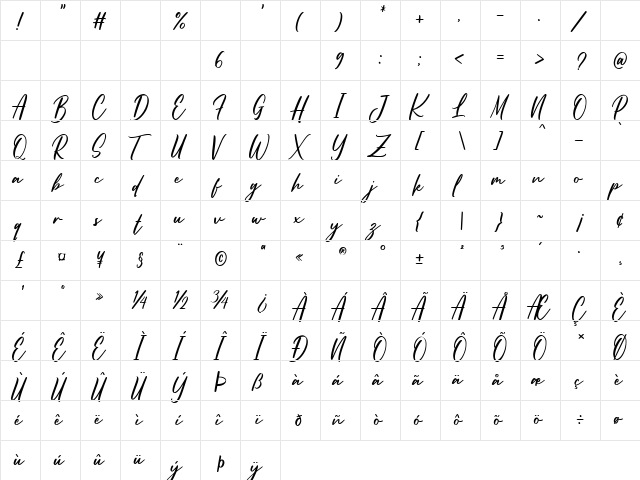
Better Land Regular
| Designer | Fajar Abdul Fatah - Nurf Designs |
Design Context for Better Land Typeface
Better Land is a composed and adaptable typeface that performs quietly and consistently across a wide range of design contexts.